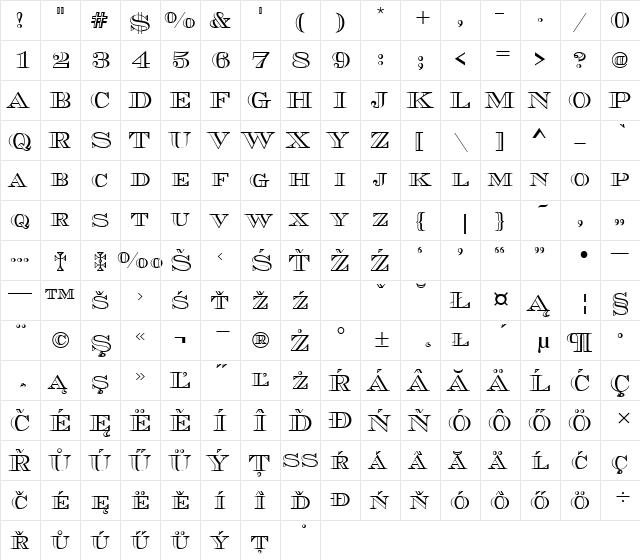
ChevaOpeSCDEE Regular
Design Context for ChevaOpeSCDEE Typeface
ChevaOpeSCDEE takes a measured approach to typography — its balanced proportions and neutral character make it a reliable workhorse for both digital and print work.
Pro Tip: Use ChevaOpeSCDEE in both headline and body roles to test its range before committing to a single application.